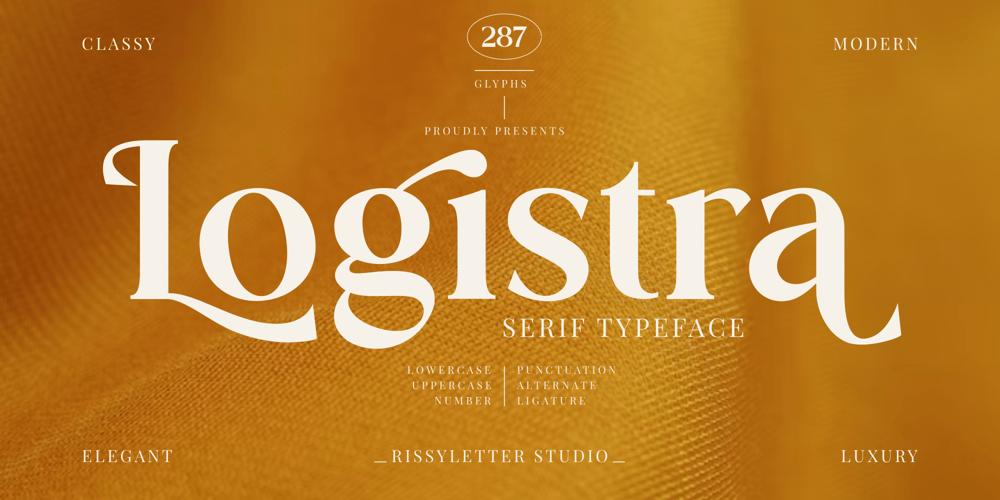
Logistra
Logistra font
Logistra Font Family was designed by Nur Rohman Rizki and published by Riasyletter_Studio. Logistra contains 1 styles and family package options. Make the typography logo on your brand more elegant and professional by using the Logistra font,The Logistra font is a serif font that has thick and thin strokes that contrast in the glyphs and is made with a straight line structure and smooth curves so that the Logistra font looks professional and elegant, and there are alternative letters and ligatures to make your typography design look unique and attractive.Logistra font is also perfect for various projects such as hand lettering, merchandise, advertisements, invitations, social media posts, video thumbnails, quotes and etc.What’s Included : – Logistra (otf/ttf/woff) – More than 280 of glyphs (include Uppercase, Lowercase, Numerals & Punctuations,Ligatures and Stylistic) – multilingual support – Works on PC & Mac – Simple installations – Accessible in the Adobe Illustrator, Adobe Photoshop, Adobe InDesign, even work on Microsoft Word. – PUA Encoded Characters (fully accessible without additional design software)Support For Language :Albanian, Basque, Breton, Chamorro, Danish, Dutch, English, Finnish, French, Frisian, Galician, German, Italian, Malagasy, Norwegian, Portuguese, Spanish, Alsatian, Aragonese, Arapaho, Arrernte, Asturian, Aymara, Bislama, Cebuano, Corsican, Fijian, French_creole, Genoese, Gilbertese, Greenlandic, Haitian_creole, Hiligaynon, Hmong, Hopi, Ibanag, Iloko_ilokano, Indonesian, Interglossa_glosa, Interlingua, Irish_gaelic, Jerriais, Lojban, Lombard, Luxembourgeois, Manx, Mohawk, Norfolk_pitcairnese, Occitan, Oromo, Pangasinan, Papiamento, Piedmontese, Potawatomi, Rhaeto-romance, Romansh, Rotokas, Sami_lule, Samoan, Sardinian, Scots_gaelic, Seychelles_creole, Shona, Sicilian, Somali, Southern_ndebele, Swahili, Swati_swazi, Tagalog_filipino_pilipino, Tetum, Tok_pisin, Uyghur_latinized, Volapuk, Walloon, Warlpiri, Xhosa, Yapese, Zulu, Latinbasic, Ubasic, Demo